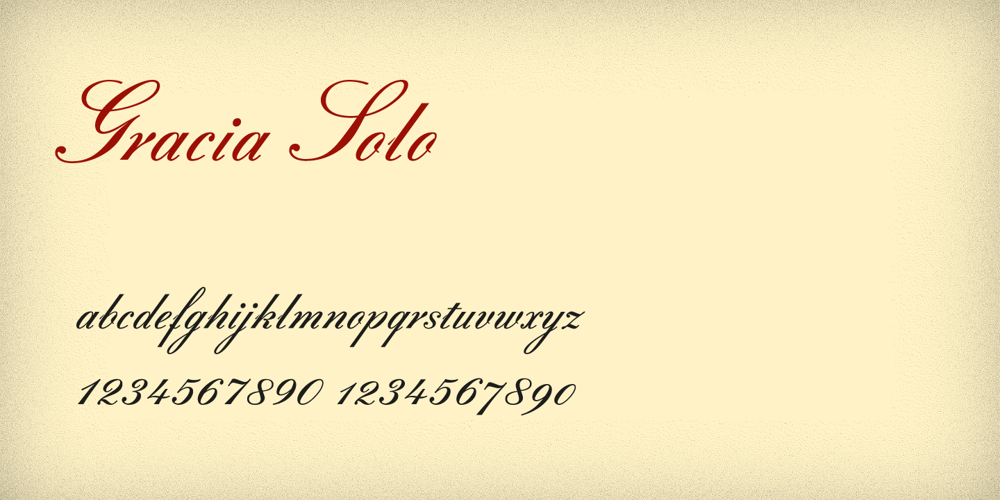
Gracia Solo
Gracia Solo font
Gracia Solo Font Family was designed by Andreas Seidel and published by astype. Gracia Solo contains 1 styles and family package options. Gracia Solo is a sister design of Gracia. Gracia Solo has left its connection forms without losing the typical look of English scripts. OpenType features: – central European faces – stylistic alternates – proportional, mediaeval numerals & Roman numerals – numerators, denominators and fractions